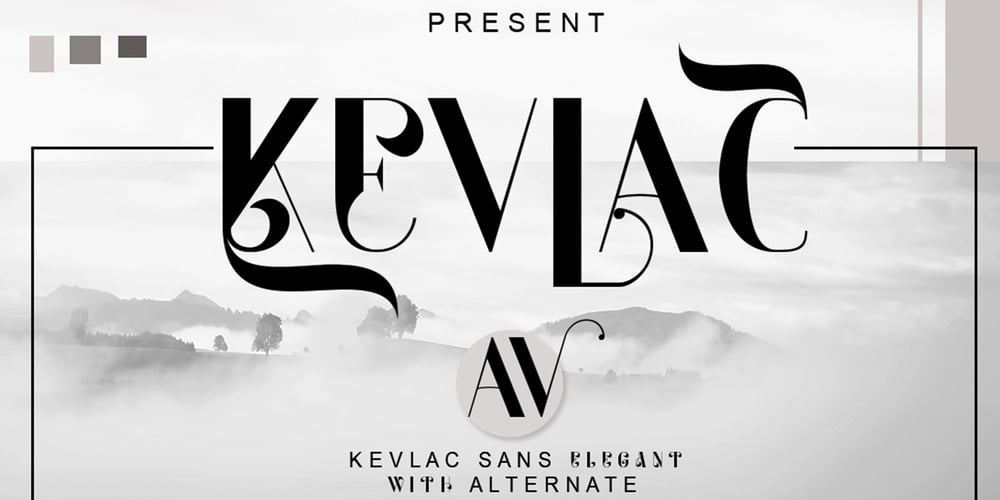
Kevlac Font Family was designed by Ibram Syah and published by Jehansyah. Kevlac contains 1 styles and family package options. KevlacThis unique design you can make as a very beautiful logo font if you mix it with the several alternatives provided, very suitable for a luxurious and elegant look, make sure you don’t miss it.